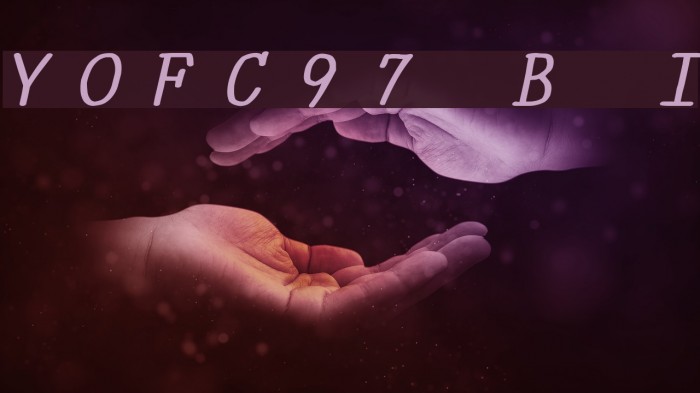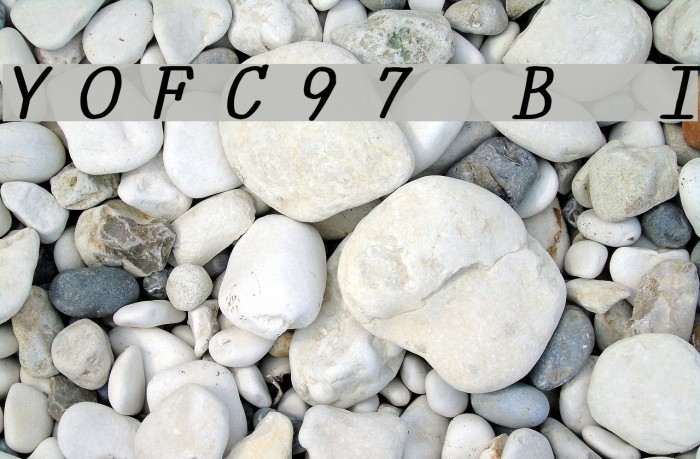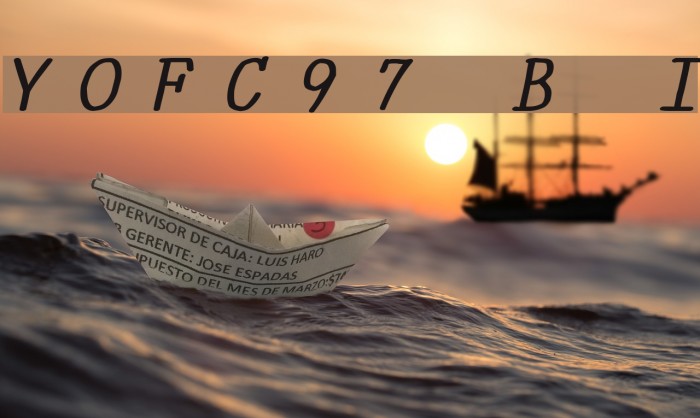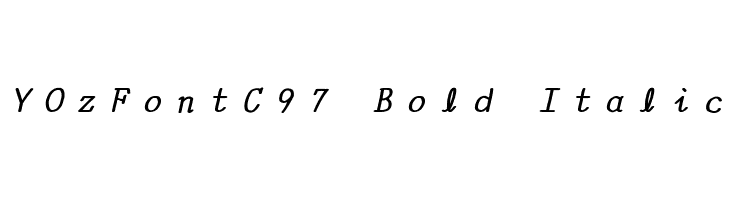
YOzFontC97 Bold Italic Font
This font features a dynamic and elegant style with a slanted, italicized appearance that adds a sense of motion and sophistication. The characters are bold, with a consistent stroke weight that ensures readability while maintaining a stylish flair. The uppercase letters are slightly taller than the lowercase, providing a balanced contrast. The numerals and special characters are designed to complement the alphabet, maintaining the same bold and italicized characteristics. The overall design is modern yet timeless, making it versatile for various applications.
A bold, italicized font with a dynamic and elegant style.
- Proposed Projects: Ideal for branding, advertising, and editorial design projects where a touch of elegance and modernity is desired.
- Use Case: Headlines, Logos, Branding